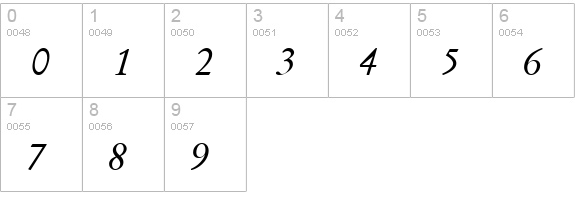
GaramondItalic Font Details
GaramondItalic is a timeless and elegant font that exudes sophistication and classic appeal. With its slanted style, this font adds a touch of refinement and grace to any design project. The delicate curves and unique letterforms of GaramondItalic create a sense of timeless beauty that is perfect for conveying a sense of tradition and history. What makes GaramondItalic even more appealing is that it is available for free download at FontsMarket.com. This means you can easily access and use this exquisite font in your projects without any cost. Whether you are working on a print design, a website, or any other creative endeavor, GaramondItalic is a versatile and stylish choice that will elevate your work to new heights. Download GaramondItalic today and experience the beauty and elegance of this classic font for yourself.